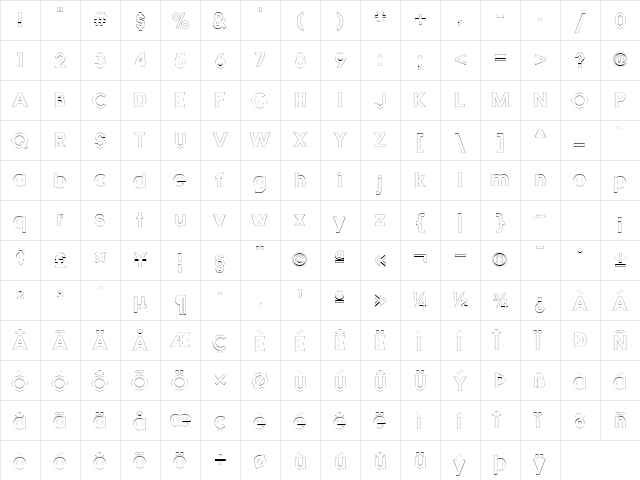
Quicksans Accurate ICG Out Regular
Design Context for Quicksans Accurate ICG Out Typeface
Quicksans Accurate ICG Out takes a measured approach to typography — its balanced proportions and neutral character make it a reliable workhorse for both digital and print work.